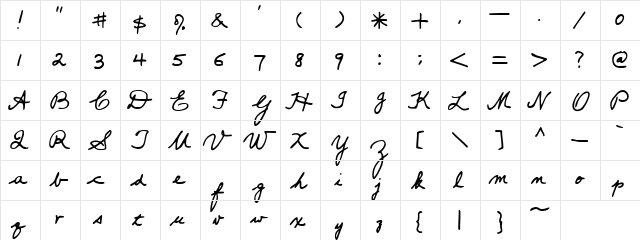
Popsies Regular
Design Context for Popsies Typeface
Popsies is a composed and adaptable typeface that performs quietly and consistently across a wide range of design contexts.